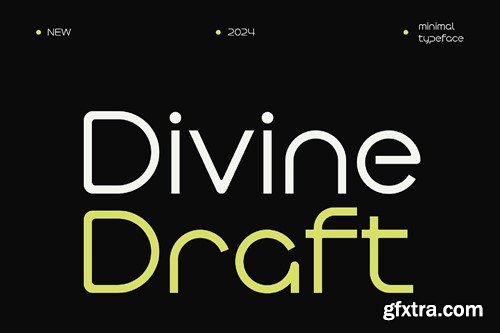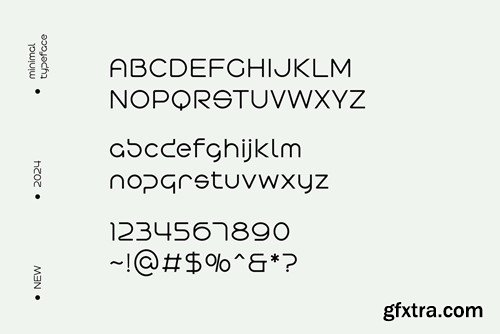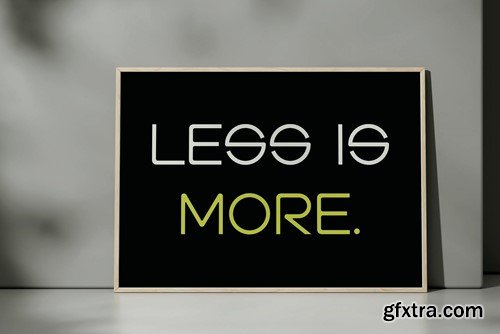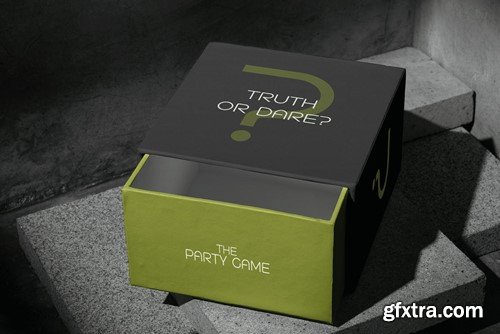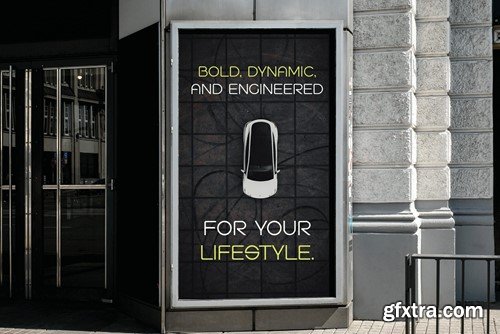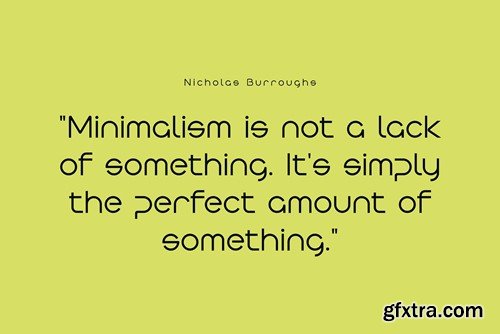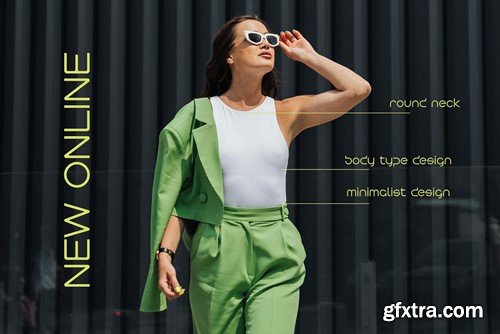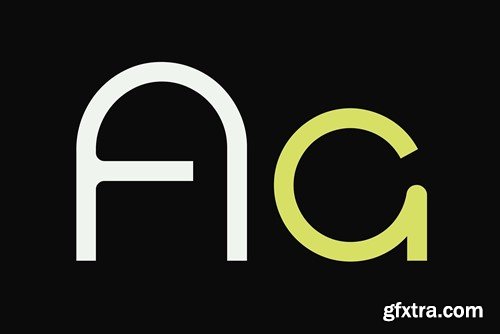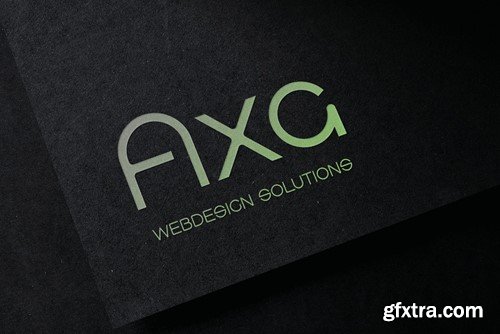
神圣草稿 - Minimal Sans 字型 KCHSKAW
Divine Draft is a masterfully designed minimal sans serif font that encapsulates the essence of simplicity and sophistication. Crafted for the modern age, this font stands as a beacon of clarity in the cluttered world of design. Its sleek, clean lines and unembellished forms offer a refreshing take on minimalistic styling, making it a perfect choice for those seeking a font that speaks volumes without shouting. Every character in Divine Draft has been meticulously shaped to ensure readability and elegance. Its uniform thickness and subtle curves create a harmonious balance, allowing for a seamless reading experience across various digital and print mediums. Whether it's for branding, web design, or print publications, Divine Draft brings a touch of refinement and professionalism. Divine Draft is more than just a font; it's a testament to the power of minimalist design. It invites designers and brands to communicate their message with elegance and confidence. Let Divine Draft be the cornerstone of your next design project, and watch as it transforms your creative vision into reality with its unparalleled sleekness and purity. What's Included : Accessible in the Adobe Illustrator, Adobe Photoshop, Corel Draw. PUA Encoded Characters - Fully accessible without additional design software. Image used : All photographs/pictures/vector used in the preview are not included, they are intended for illustration purpose only.